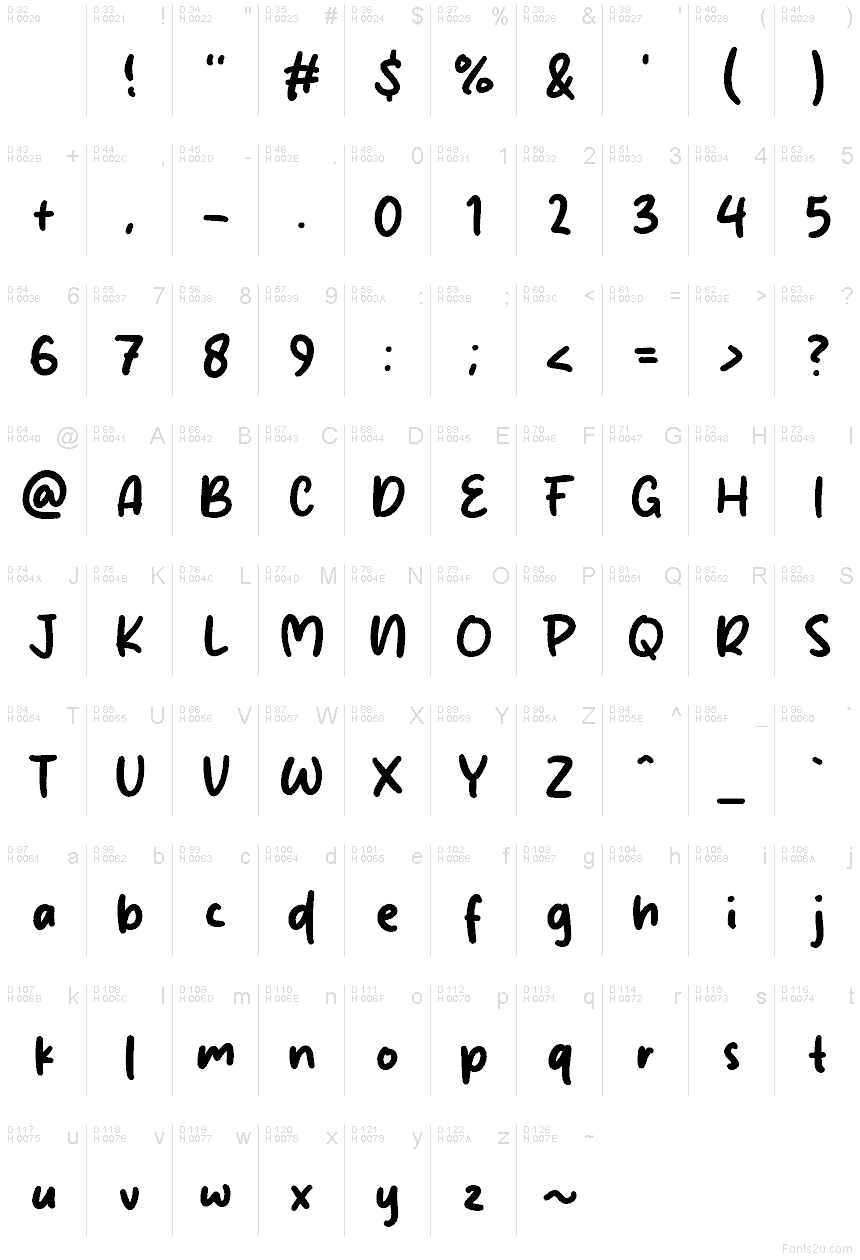
Camellia Shine
Camellia Shine font by MJType is a playful and expressive free handwritten font with casual elegance. The font presents an energetic, modern, and relaxed style that can leave anyone feeling empowered and maybe even happier.